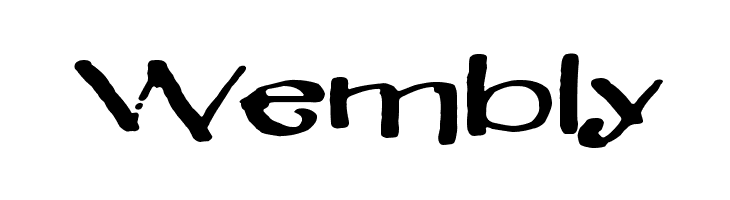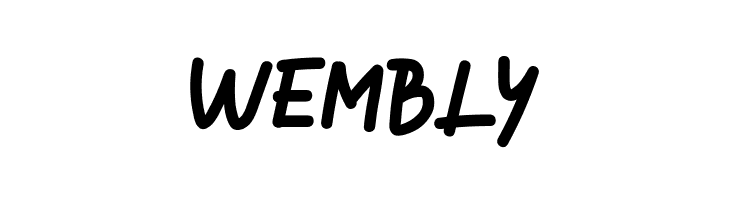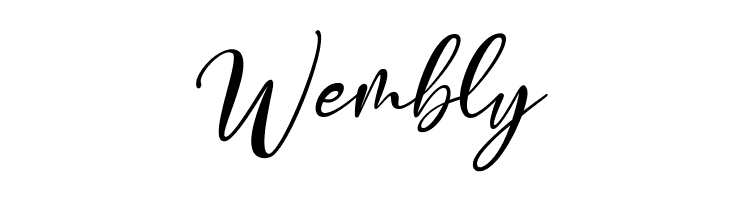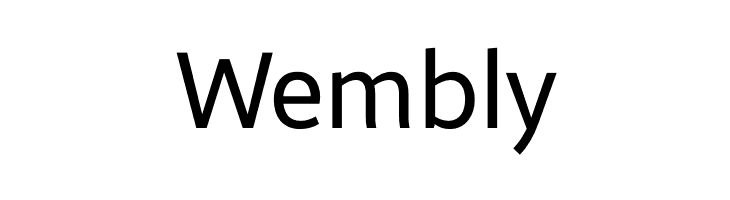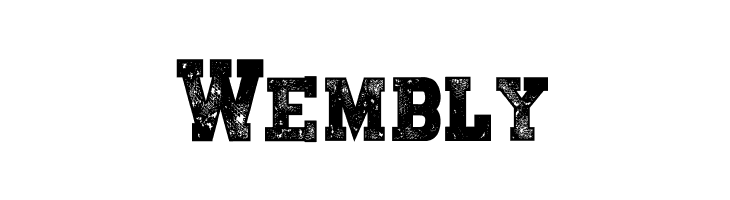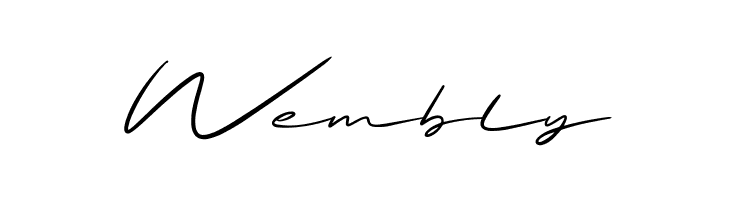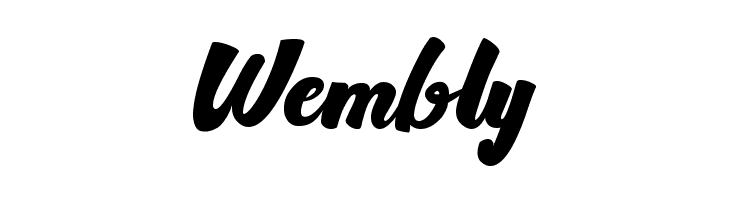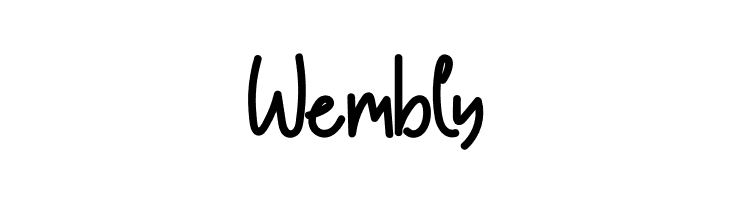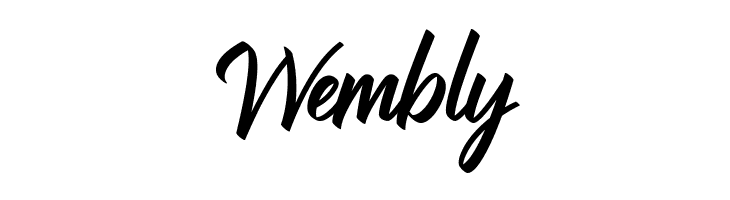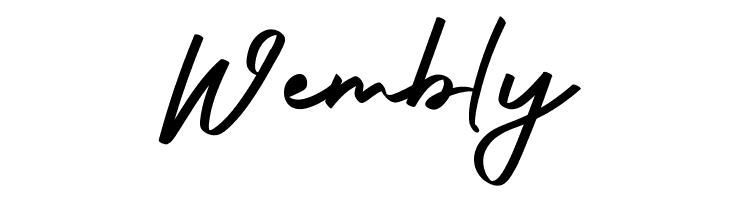
A bold, brush-style font with expressive, hand-painted characteristics.
A high-contrast serif font with elegant, modern curves and sharp edges.
A modern, elegant script font with flowing, cursive letters.
A whimsical, artistic handwritten font with fluid, dynamic strokes.
Elegant cursive font with flowing, interconnected characters and a bold style.
A dynamic and fluid script font with elegant, flowing letterforms.
An elegant, slanted script font with intricate curves and flourishes.
A bold, expressive script font with fluid, interconnected strokes.
A bold, dynamic script font with fluid, connected letterforms and a modern, elegant style.
A bold, brush script font with a dynamic and textured style.
A bold, brush-style font with a dynamic and artistic flair.
A bold, geometric sans-serif font with a modern and clean design.
A fluid and elegant script font with a handwritten style.
A bold, textured, hand-drawn style font ideal for creative projects.
A playful, casual handwritten font with smooth, rounded edges.
A decorative font with intricate, symbolic designs within each character.
A decorative font with intricate geometric patterns and symbols within each character.
A bold, graffiti-inspired font with a dynamic, hand-drawn style.
A playful and dynamic handwritten font with fluid, slightly slanted letterforms.
A stylish cursive font with elegant loops and flourishes.
A bold, textured font with a distressed, vintage appearance.
A dynamic and expressive handwritten font with fluid strokes.
A decorative blackletter font with ornate, gothic-inspired letterforms.
A bold, expressive script font with flowing, cursive letterforms.
A playful, tall, and narrow font with a whimsical touch.
A high-contrast, elegant serif font with sharp serifs and a modern aesthetic.
A fluid and elegant cursive font with graceful curves and a handwritten feel.
A fluid, cursive font with an elegant, handwritten style.
A modern, clean sans-serif font with excellent readability and balanced proportions.
A modern, bold sans-serif typeface with excellent readability and versatility.
A modern, italic sans-serif font with clean lines and excellent readability.